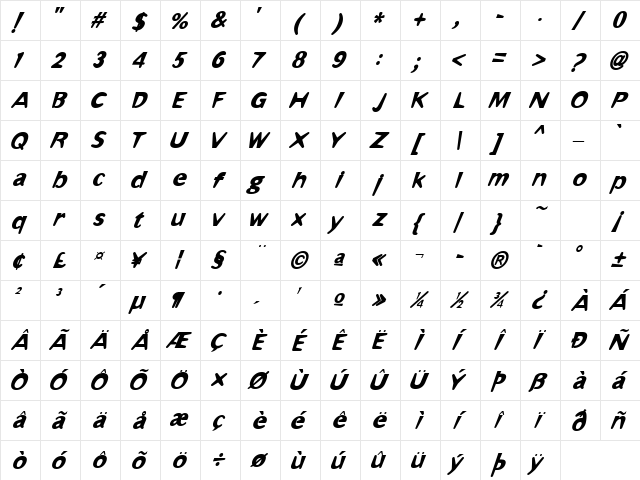
Omaha Bold Italic Regular
Design Context for Omaha Bold Italic Typeface
Omaha Bold Italic takes a measured approach to typography — its balanced proportions and neutral character make it a reliable workhorse for both digital and print work. The slanted form adds forward momentum and visual energy. The heavy weight commands attention and anchors typographic hierarchies.
Pro Tip: Use Omaha Bold Italic for emphasis, pull quotes, and subheadings where its slanted energy can add rhythm to the layout.